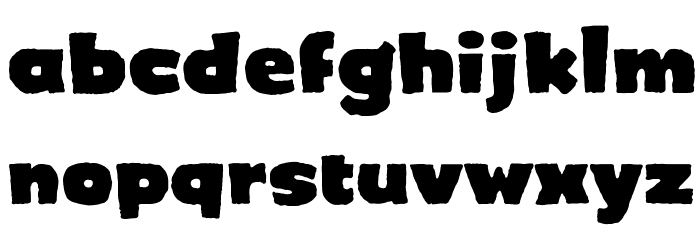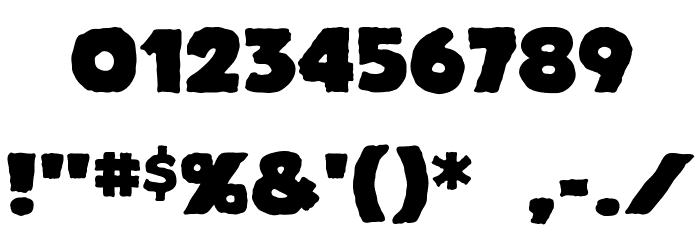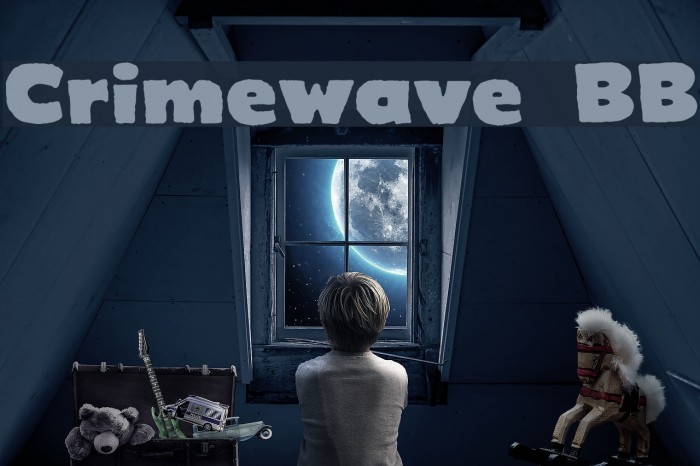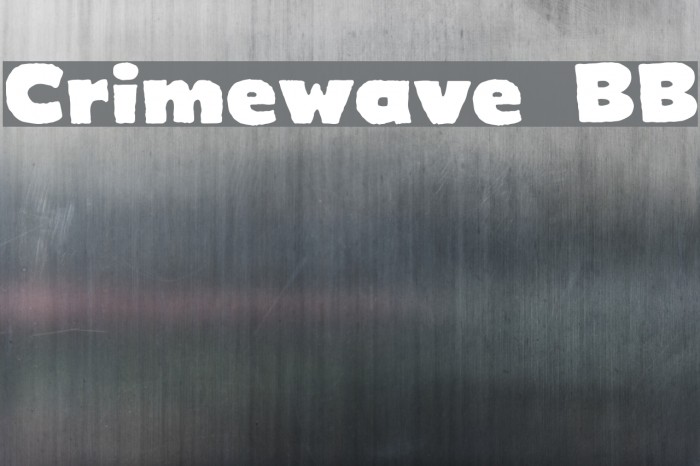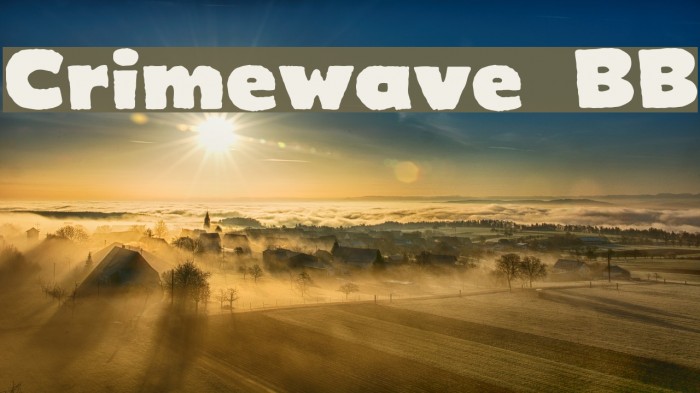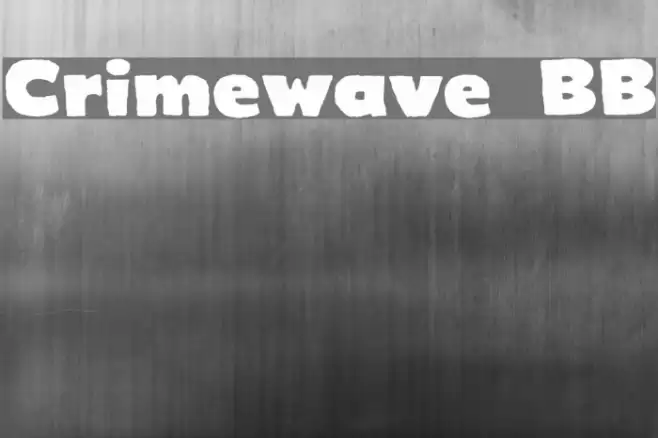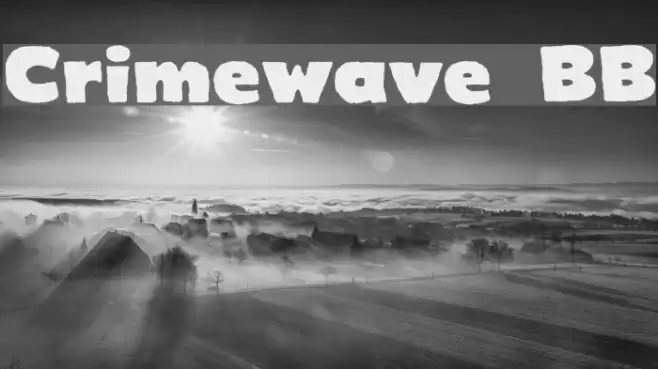
Crimewave BB Font
This font features a bold and rugged style, characterized by its thick, uneven strokes and distressed appearance. The letters have a hand-drawn quality, with irregular edges that give it a raw, organic feel. The uppercase and lowercase letters maintain a consistent weight, contributing to its strong visual impact. The numerals and special characters follow the same design ethos, ensuring uniformity across all glyphs. This font exudes a rebellious and edgy vibe, making it ideal for projects that require a bold statement. Its unique style is reminiscent of street art or graffiti, adding a touch of urban flair to any design.
A bold, rugged font with a distressed, hand-drawn appearance.
- Font: Crimewave BB
- Proposed Projects: Ideal for posters, album covers, streetwear branding, and edgy graphic designs.
- Overall Style: Edgy, Urban, Rebellious